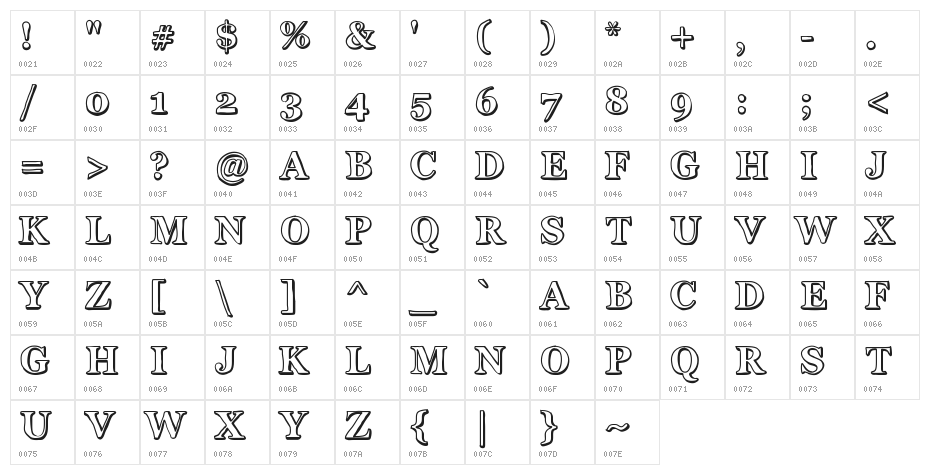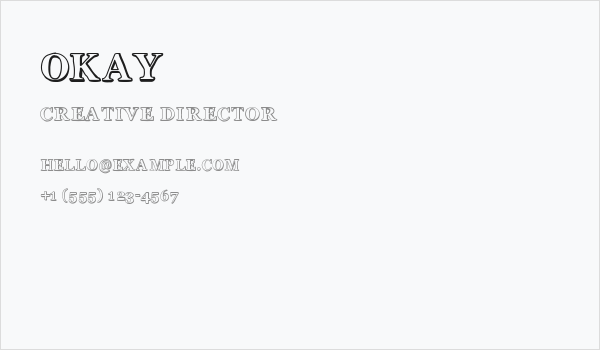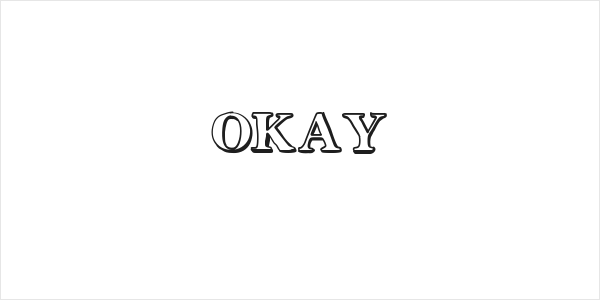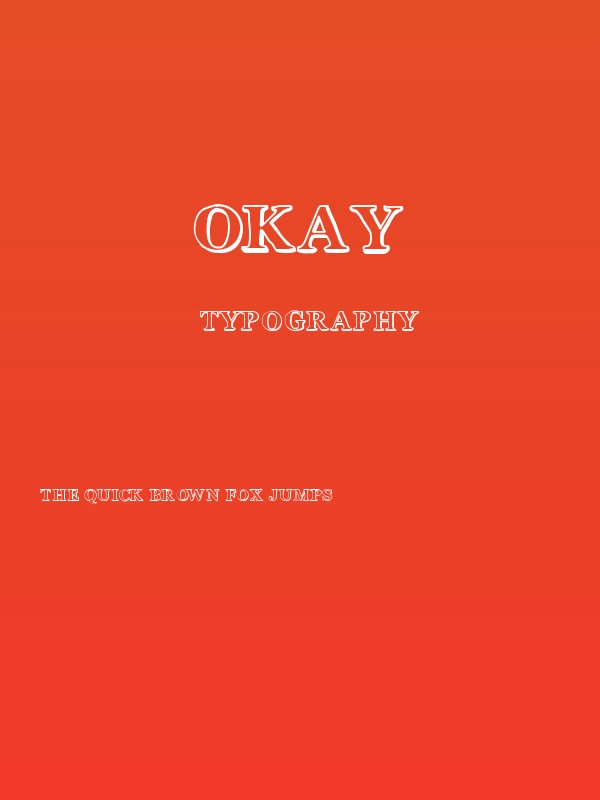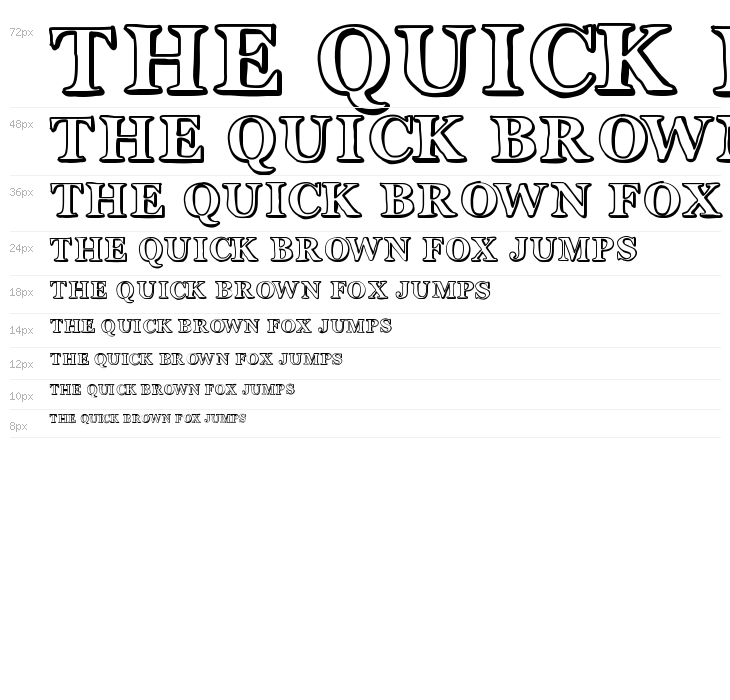
Okay Font
Okay Description
This font features a bold, outlined serif style that combines traditional serif elements with a modern twist. The characters are defined by strong, thick outlines that give them a three-dimensional appearance. The serifs are pronounced, adding a classic touch, while the overall structure remains clean and readable. The font maintains a consistent weight throughout, ensuring uniformity across all characters. Its distinct outline makes it stand out, making it suitable for eye-catching designs.
| Proposed Projects | Ideal for headlines, posters, branding, and any design project that requires a bold and distinctive typeface. |